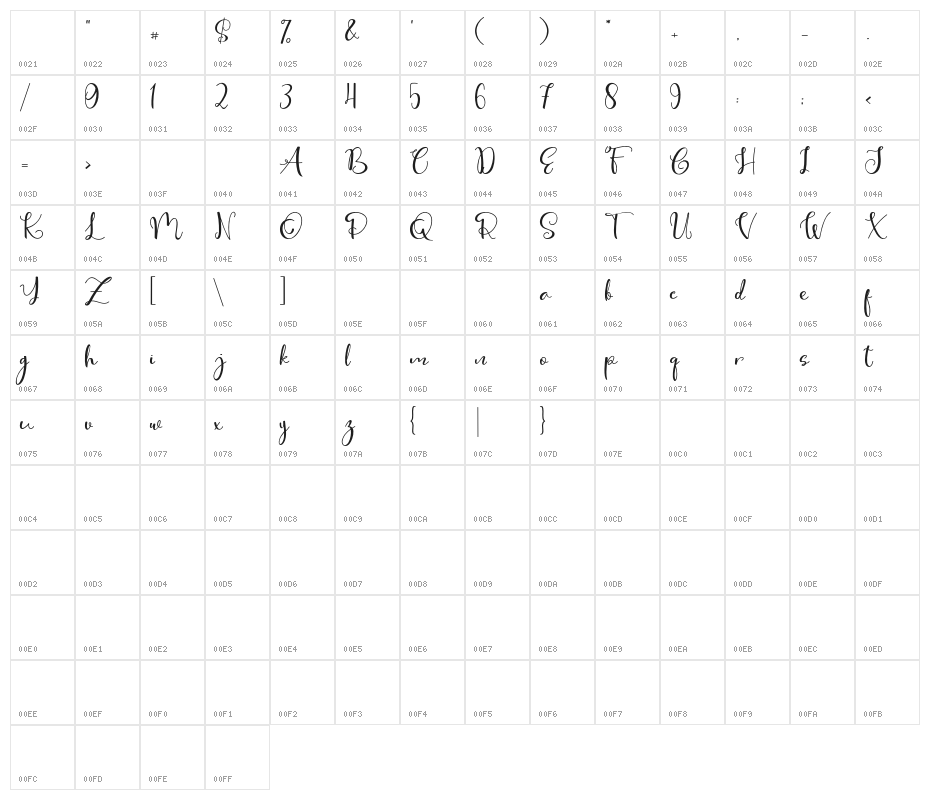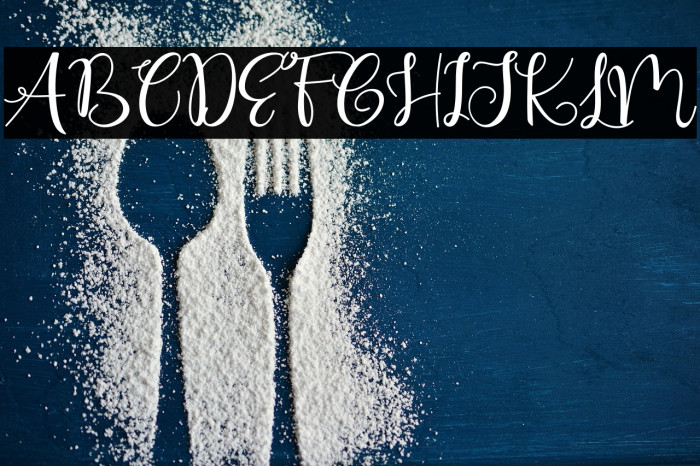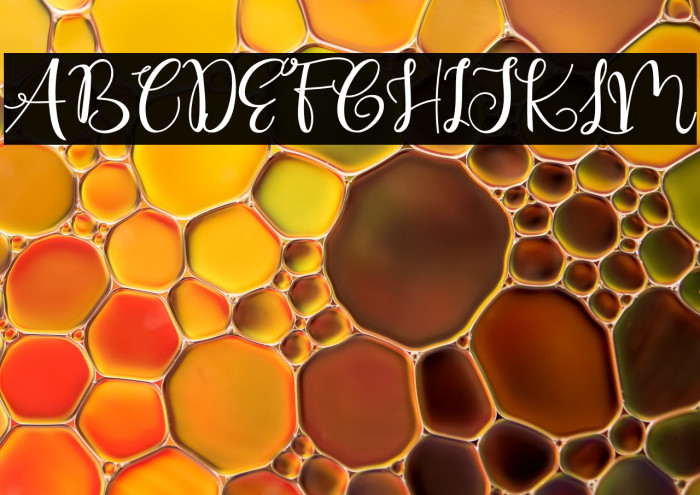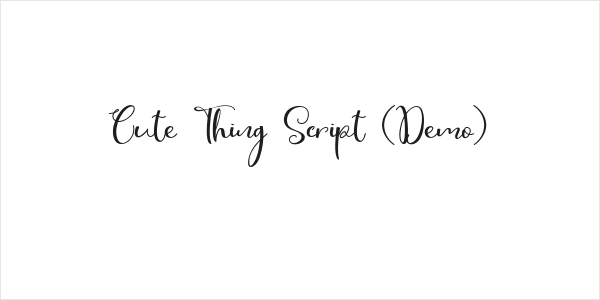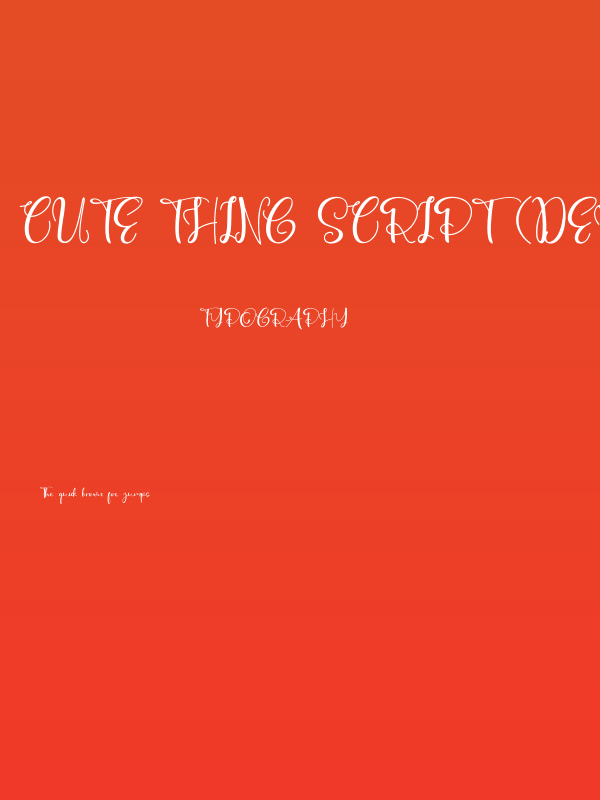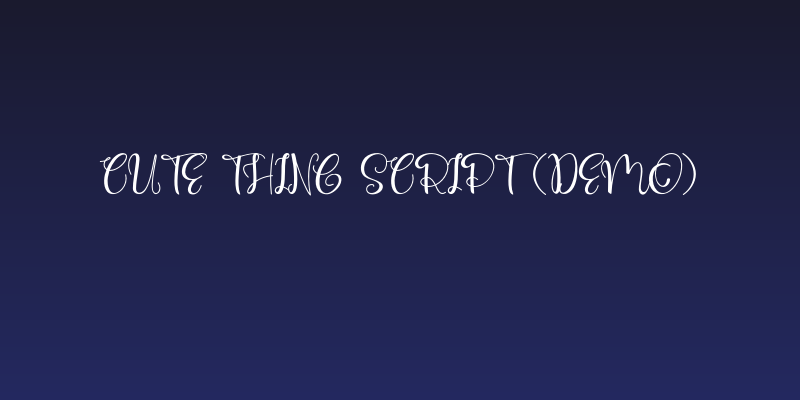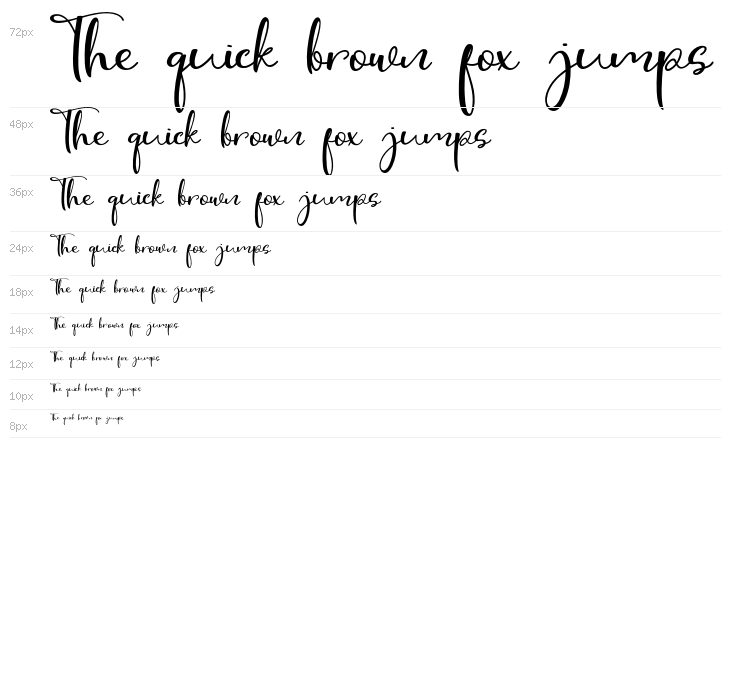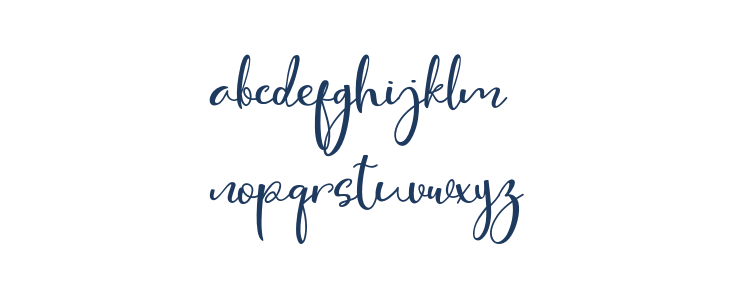
Cute Thing Script (Demo) Font
Cute Thing Script (Demo) Description
This font features a playful and whimsical script style with a handwritten appearance. The characters are elegantly curved with a flowing, cursive design that gives it a lively and dynamic feel. The uppercase letters are particularly ornate, with loops and swirls that add a touch of sophistication. The lowercase letters maintain a consistent style, offering a harmonious blend with the uppercase set. Numbers and special characters are crafted to match the overall aesthetic, ensuring a cohesive look. This font is ideal for projects that require a personal and artistic touch, such as invitations, greeting cards, and creative branding.
| Use Case | Logos, Headlines, Artistic projects |
| Proposed Projects | Ideal for invitations, greeting cards, creative branding, and artistic designs. |